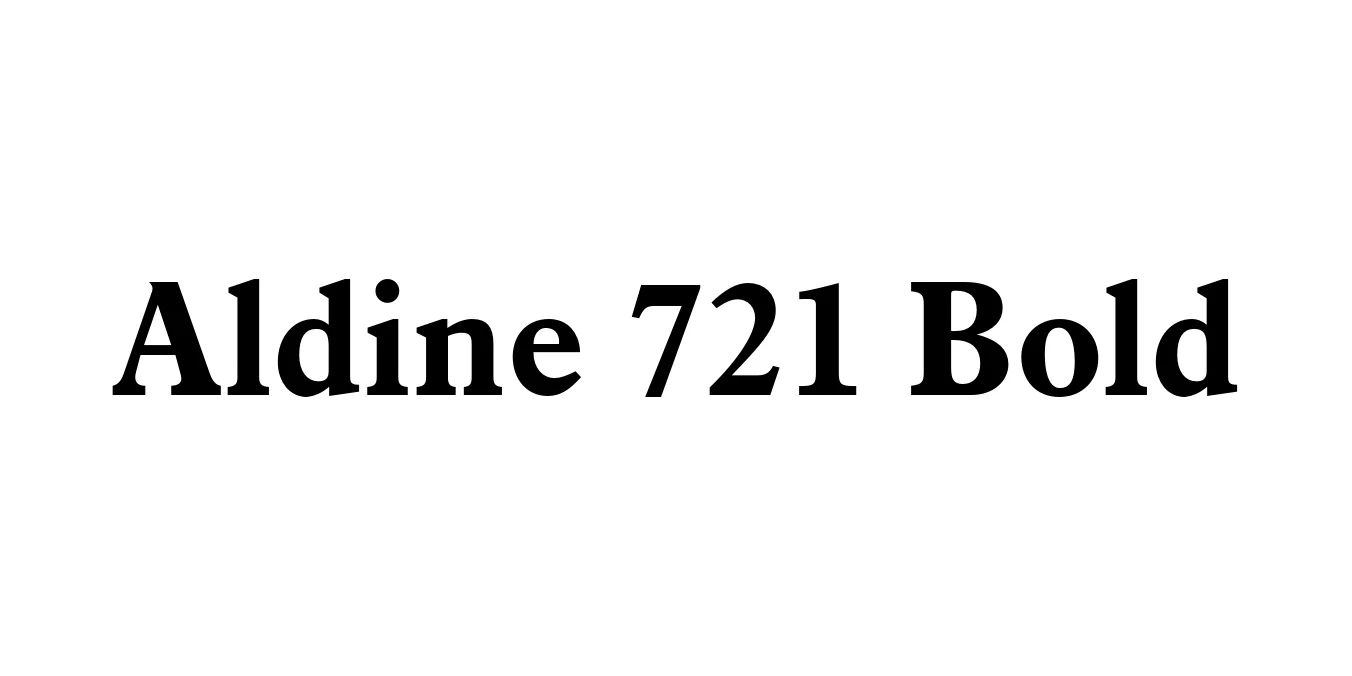
Aldine 721 Bold
Designed by Richard Isbell
| Category | Old Style Serif |
| Designer | Richard Isbell |
Aldine 721 is a classic serif typeface commissioned by Bitstream, serving as a faithful digitization of the historic Plantin design. Its origins trace back to the 16th-century letterforms of Christophe Plantin, though the specific model for this revival was the 1913 Monotype version. This 'Old Style' serif was engineered to provide a denser, more robust appearance than contemporary French Garamonds, making it a staple for high-quality book printing and editorial design throughout the 20th century.
In its Bold weight, Aldine 721 exhibits a masterful balance of visual weight and structural clarity. The letterforms are characterized by a large x-height and short ascenders and descenders, which allow for tighter line spacing without sacrificing legibility. The terminals are slightly rounded and the serifs are sturdy, providing a grounded aesthetic that excels in display settings. Unlike more delicate serifs, the Bold variant maintains its internal counters even at smaller point sizes, ensuring high-impact communication for headings and sub-headings.
Aldine 721 Bold Best Uses
Perfect for magazine headers and scholarly journals requiring a sense of authority.
Lends an air of established tradition and reliability to corporate logos.
Ideal for title pages and chapter headings in high-end book design.